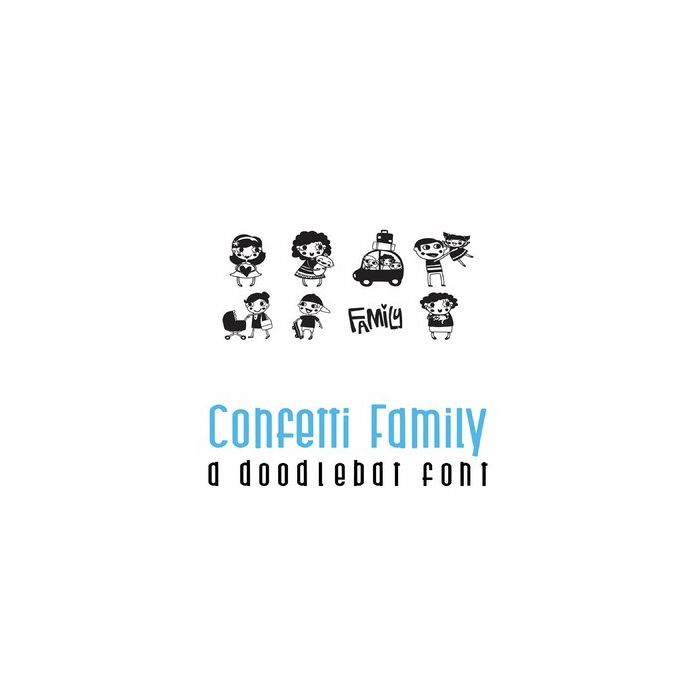
Confetti Family Doodlebat Font
This fun doodlebat font features 26 adorable family imagery. Perfect for cards, gifts, decor, crafts, scrap book pages, planner stickers and more!